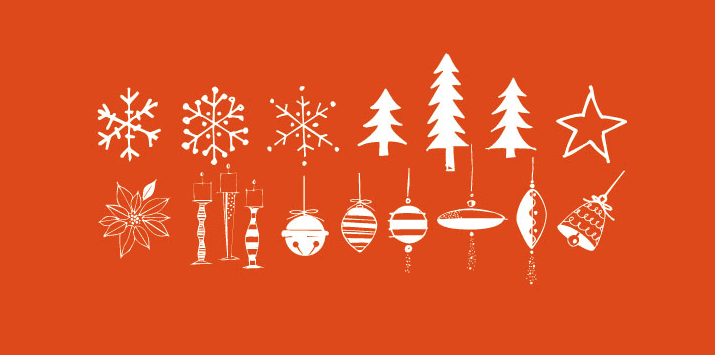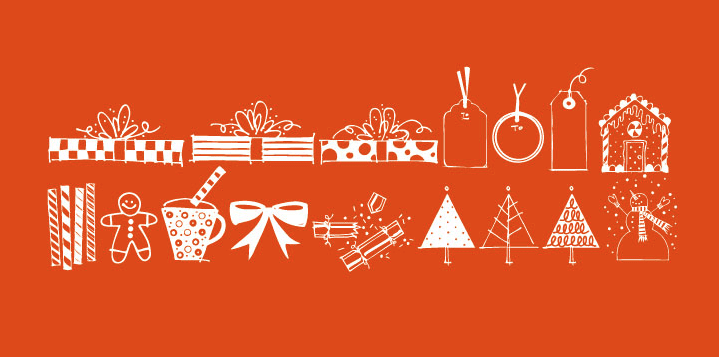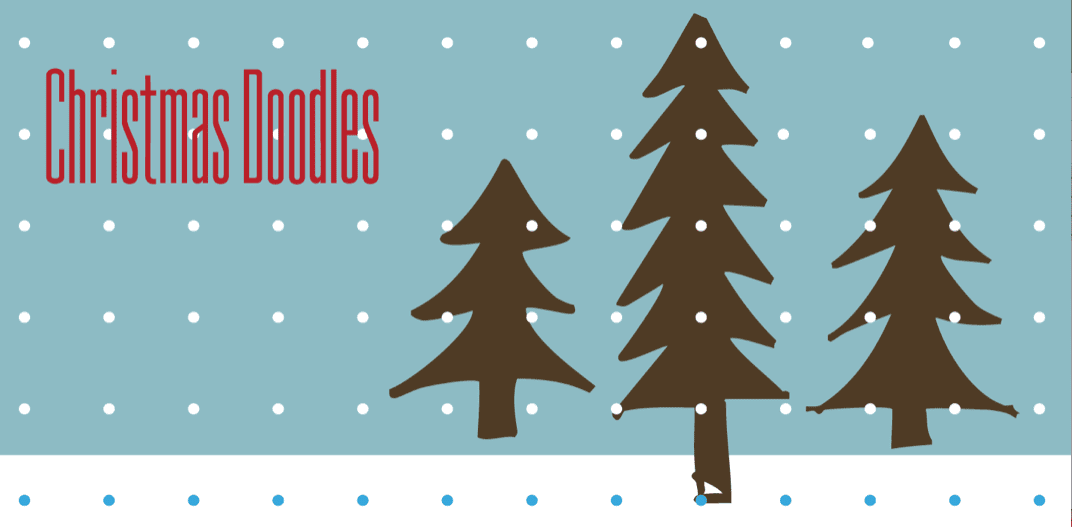
The newest addition to the Outside the Line collection of picture Doodle fonts...
Christmas Doodles. The perfect font for that quickie Christmas party flyer. It includes gifts, gift tags, gingerbread man, gingerbread house, candy canes, hot cocoa, bow, crackers, 2 kinds of trees, poinsettia, jingle bell, ornaments, snowflakes and a star. This font works well with Holiday Doodles and Holiday Doodles Too which have some Christmas icons in them.